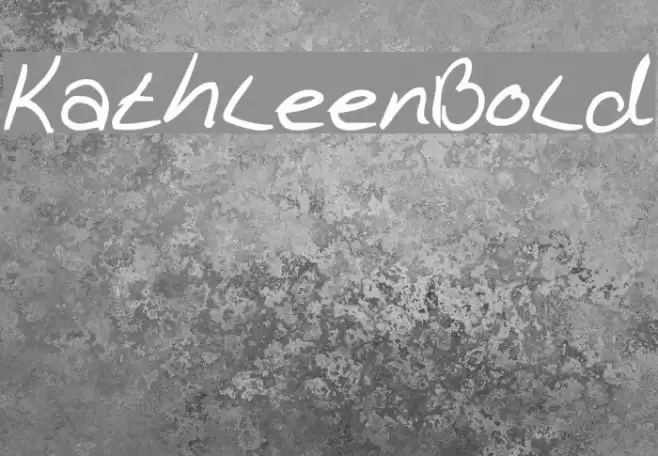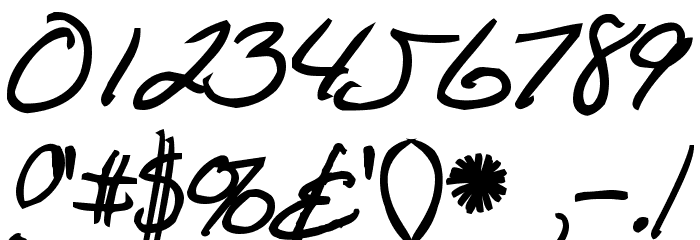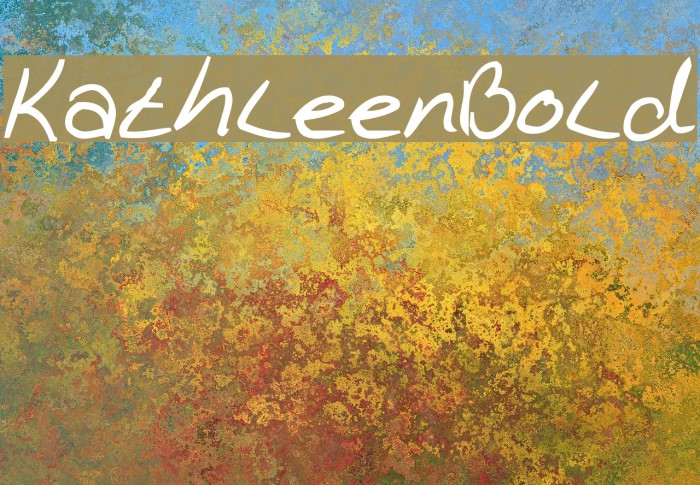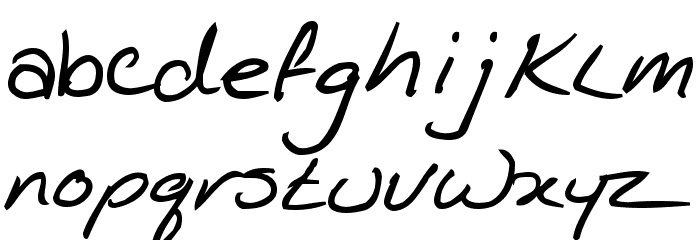
KathleenBold Font
KathleenBold Description
This font features a dynamic and fluid handwritten style, characterized by its bold and expressive strokes. The letters exhibit a natural flow with a slight slant, giving it an energetic and personal touch. The uppercase and lowercase letters maintain a consistent style, with some characters like 'g' and 'y' having distinctive loops. Numbers are clear and legible, while special characters retain the same lively aesthetic. The overall appearance is both casual and sophisticated, making it suitable for projects that require a personal or artistic flair.
A bold, handwritten font with dynamic and fluid strokes from Handwritten fonts.
- Proposed Projects: Ideal for greeting cards, personal branding, artistic posters, and social media graphics.
- Use Case: Logos, Headlines, Artistic projects